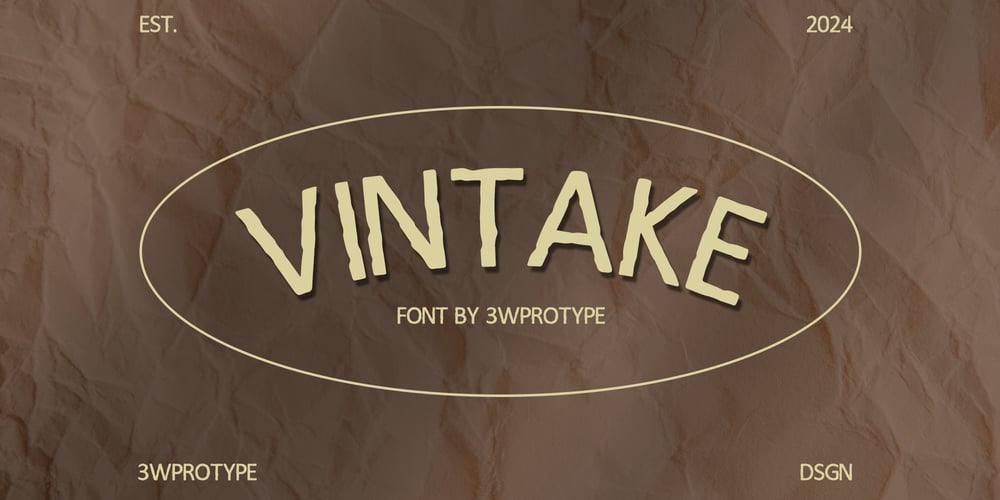
Vintake
Vintake font
Vintake Font Family was designed by I Wayan Wisna Wijaya and published by 3Wprotype. Vintake contains 1 styles and family package options. Introducing, Vintake Display Font. Concise typeface is fun, and relaxed with natural. This type of font is very suitable to be applied especially for the needs of letters and logos, and various other formal forms such as invitations, labels, magazines, books, greeting/wedding cards, packaging, fashion, make up, stationery, novels, labels or any type of advertising purpose.